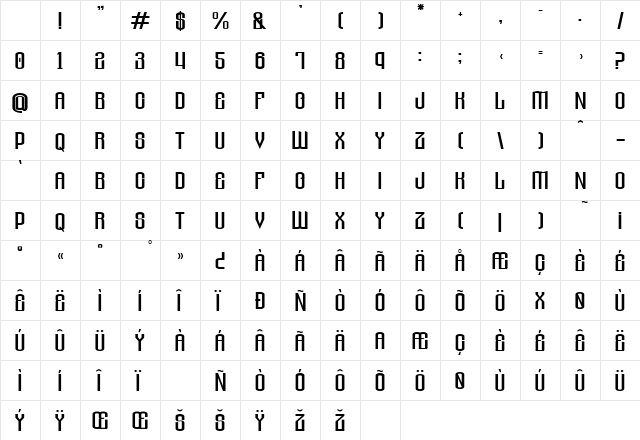
Complete Solace for Sadist Regular glyph index. Displaying only characters natively supported by Solace for Sadist Regular font.
Solace for Sadist is a composed and adaptable typeface that performs quietly and consistently across a wide range of design contexts.